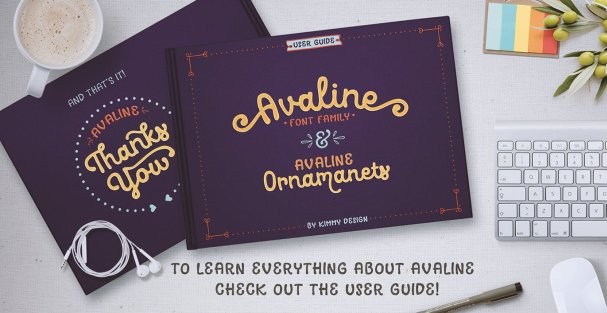
Avaline Script Sketch Font
Avaline Script Sketch Font is stated to be one of the fine loose fonts. This typeface is used in painting and it is available here for free. It makes fonts appropriate for posters. The bundle deal is available in brilliant patterns: emerald or splatter.it is pinnacle-notch for logos, t-shirt designs, and signage.